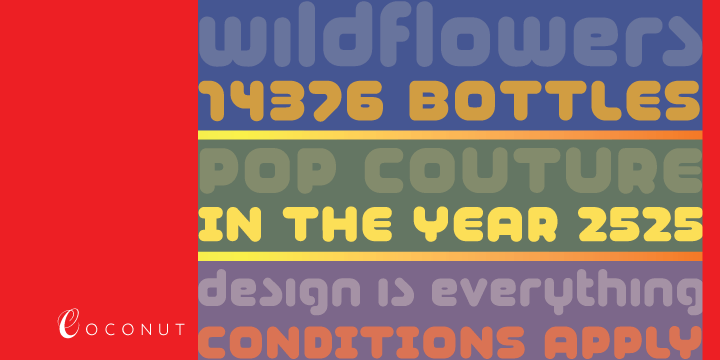
Coconut is a retro and display sans font family. This typeface has two styles and was published by Canada Type.
Coconut is a round and heavy unicase font with the techno, squarish, grid-based squeeze that of late seems part of almost every contemporary pop designs. It works as the 21st century display substitute to tired last-century horses like Frankfurter, VAG, or the rounded Helveticas, Futuras, and DINs out there.
Coconut and Coconut Shadow come in all popular font formats, with a complete character set that is loaded with alternates. Check out the character map for a real techno treat.